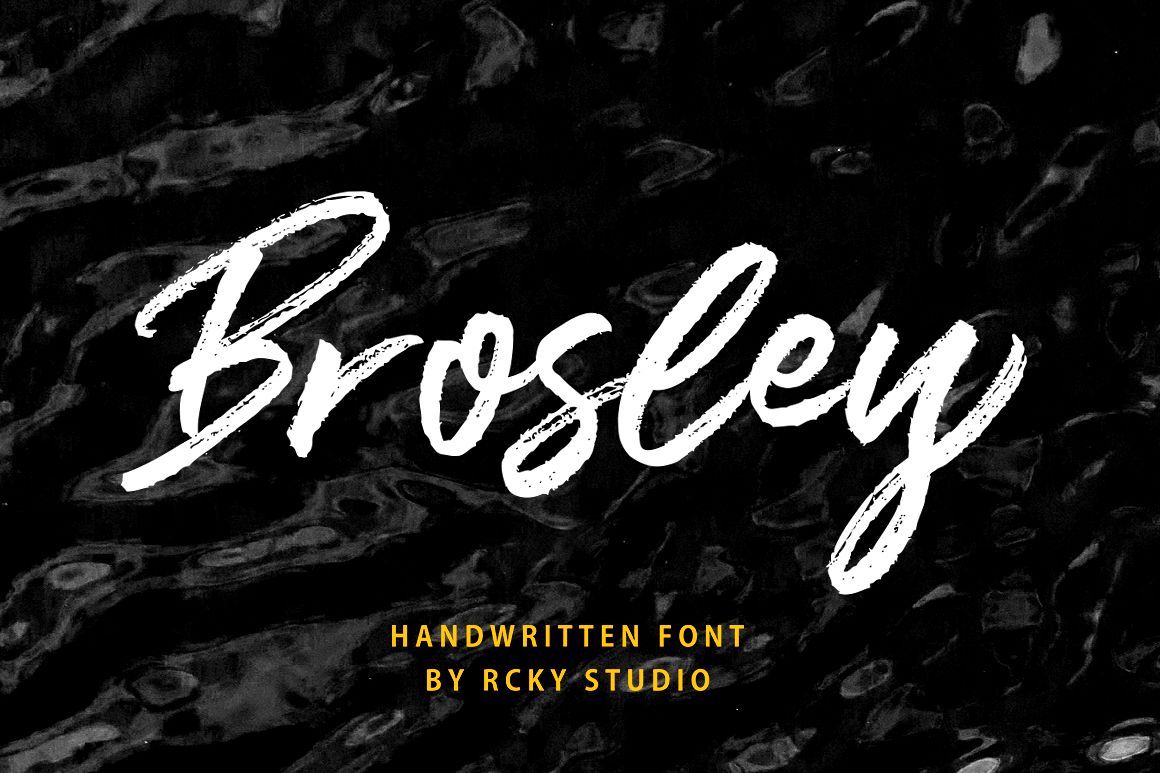
Brosley Font
Brosley Font is a beautiful hand-painted font, contemporary approach to design and unique in each letter.
Suitable for use in title designs such as clothing, invitations, book titles, stationery designs, quotes, branding, logos, greeting cards, T-shirts, packaging designs, posters, and more.
Contains the complete set of lowercase, uppercase, alternative, binder, punctuation, numbers, and multilingual support.